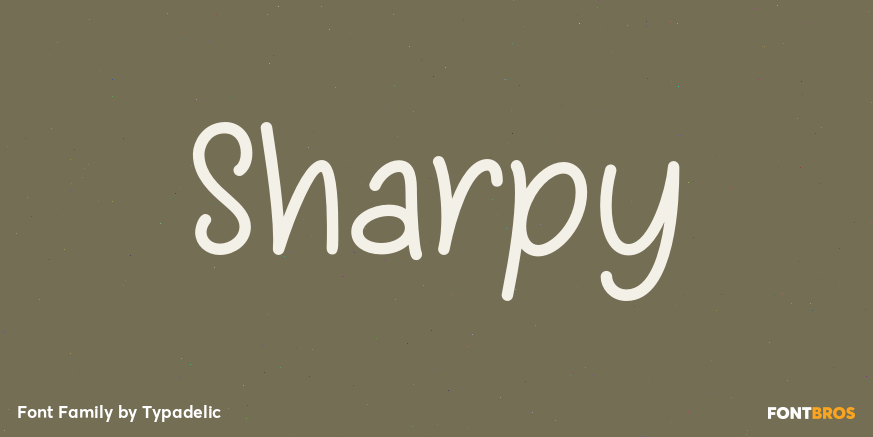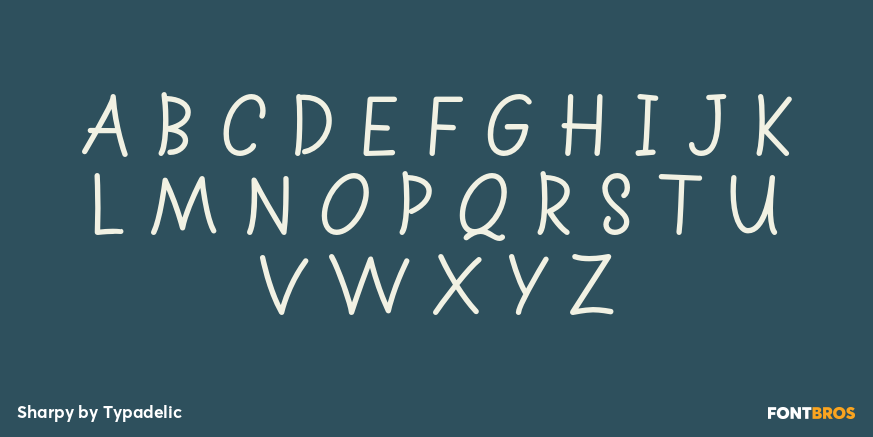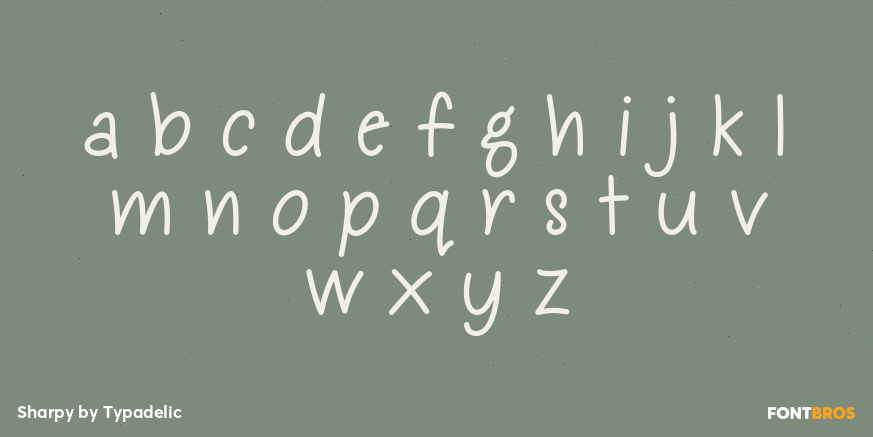
Sharpy
Font Family by Typadelic
As its name implies, Sharpy appears as if written with a fine-point marker. As with most Typadelic fonts, Sharpy is warm and friendly and works well at small and large text sizes.